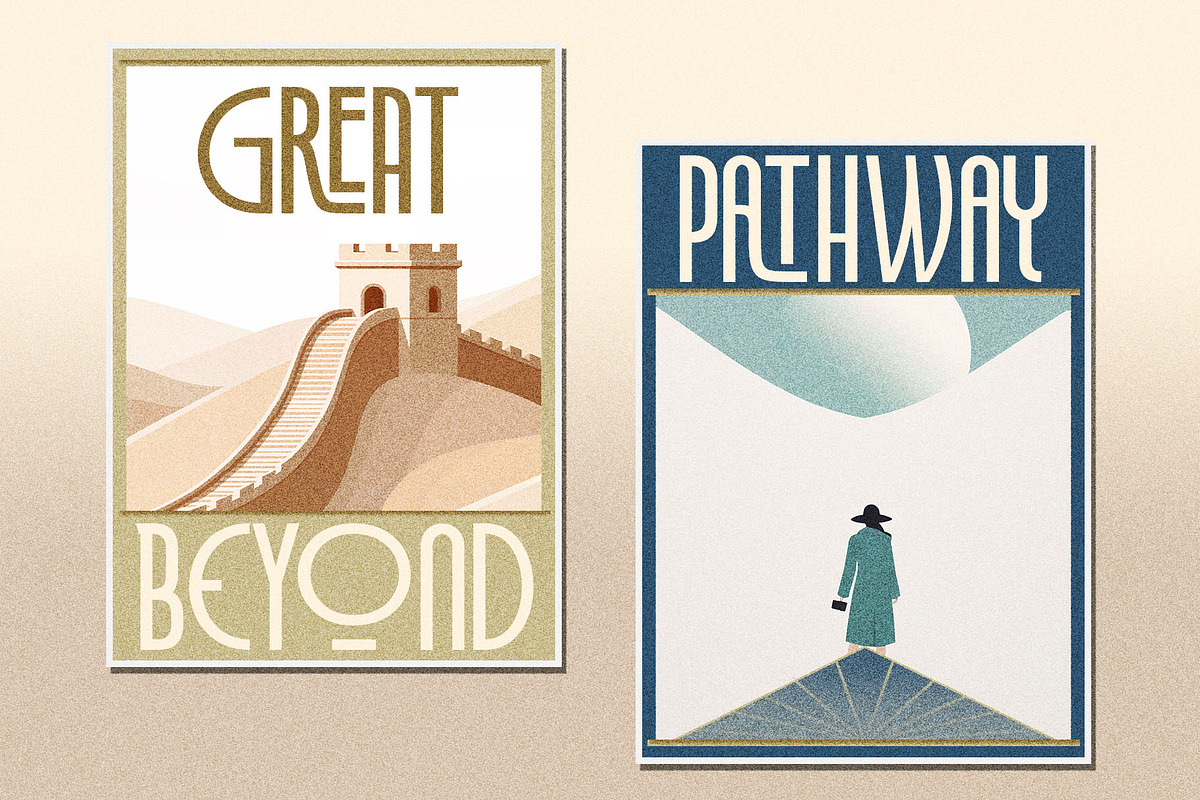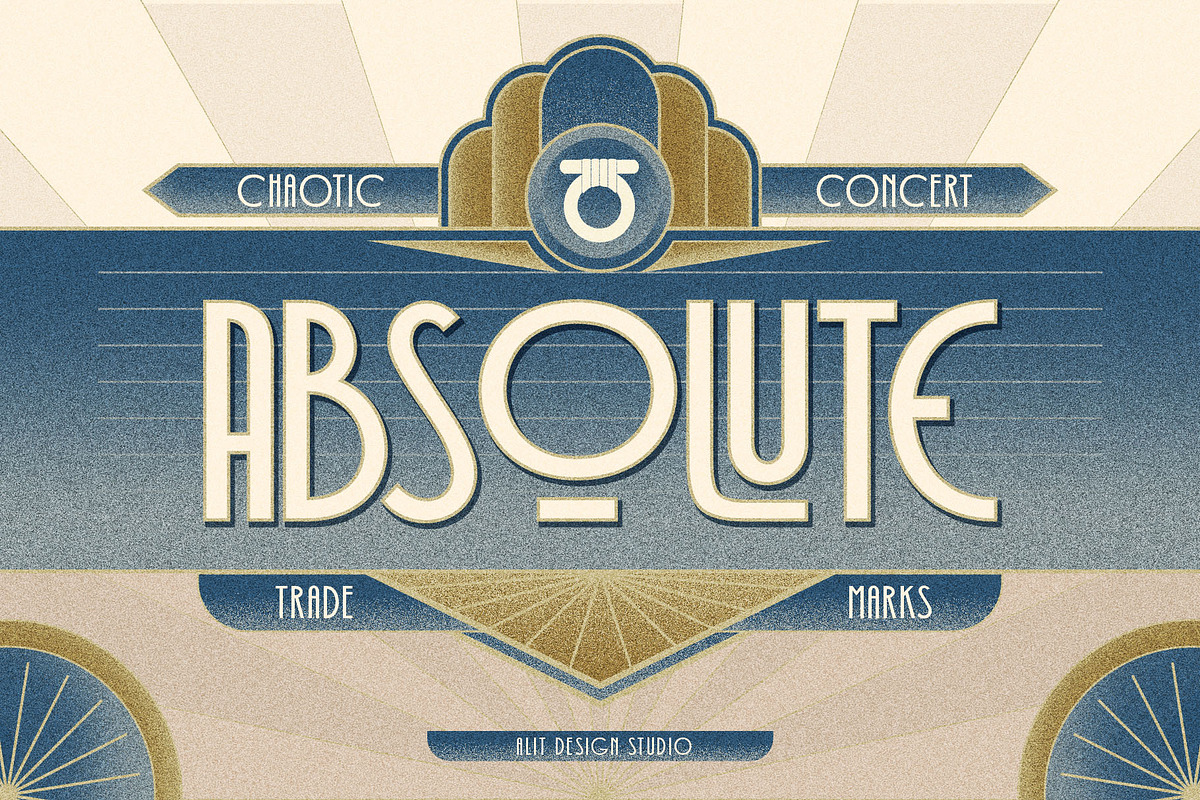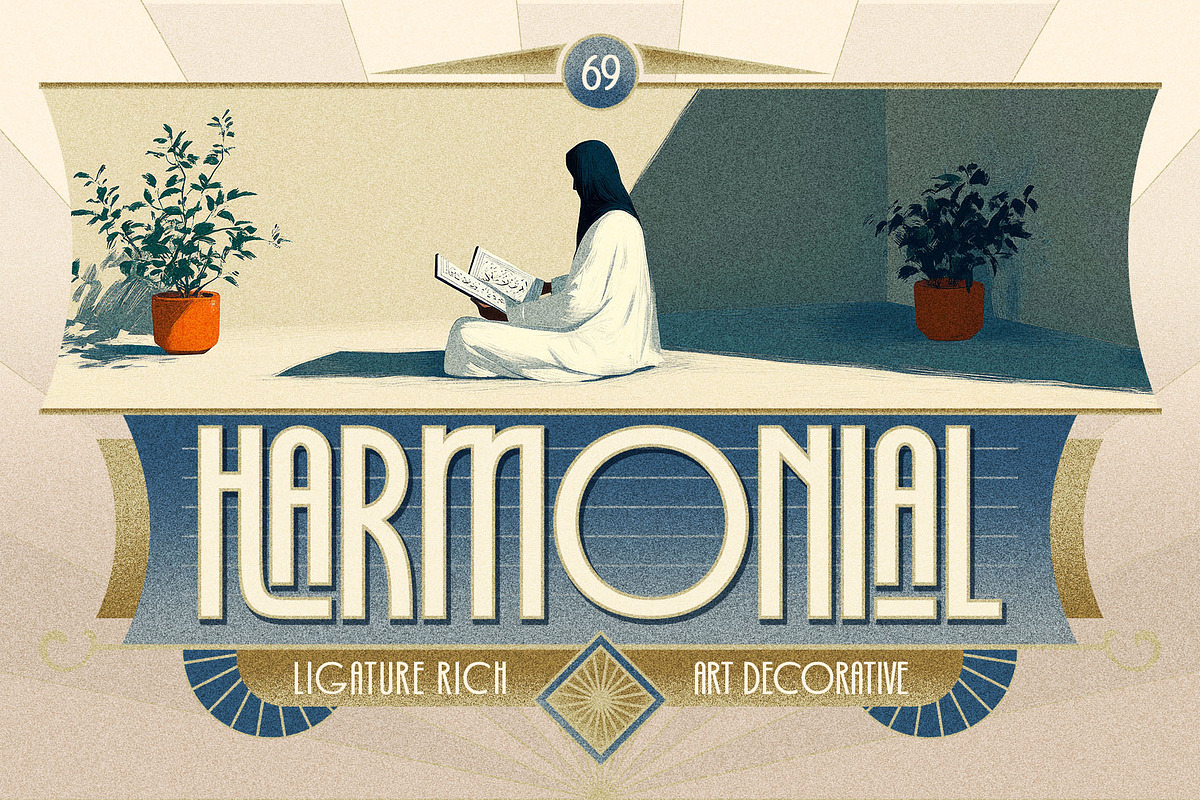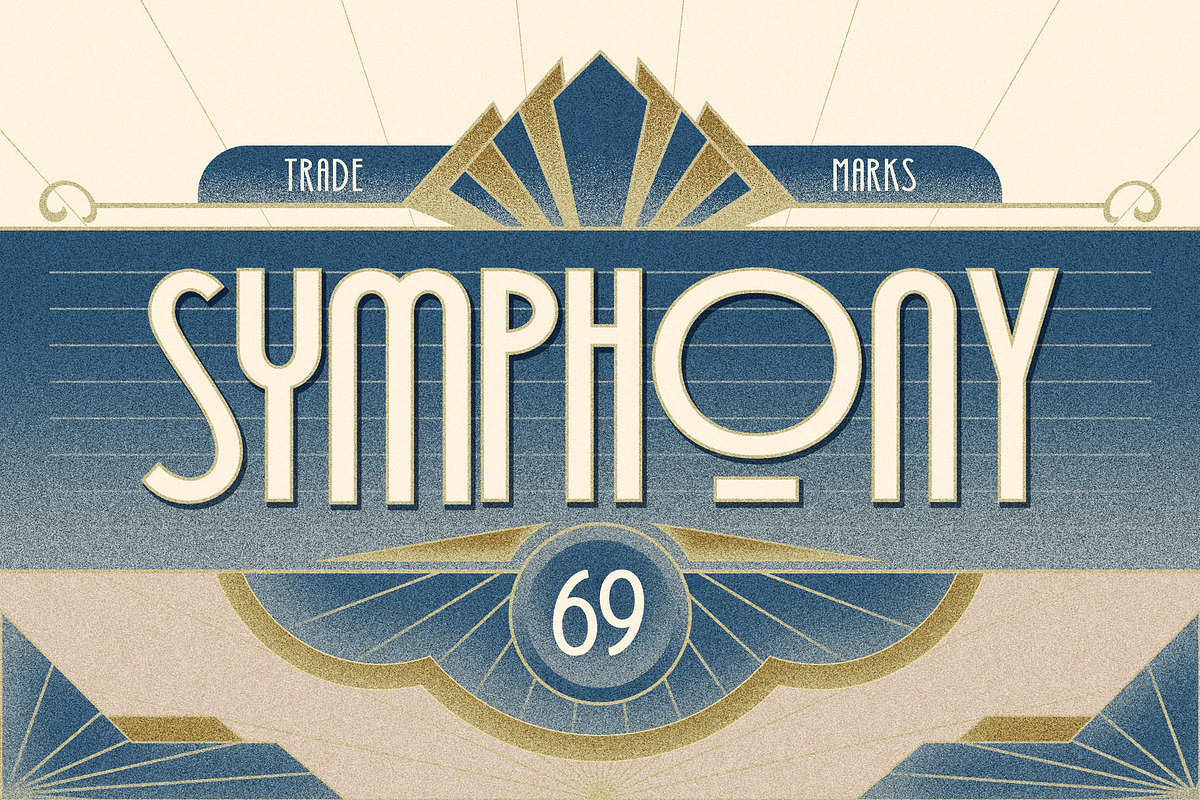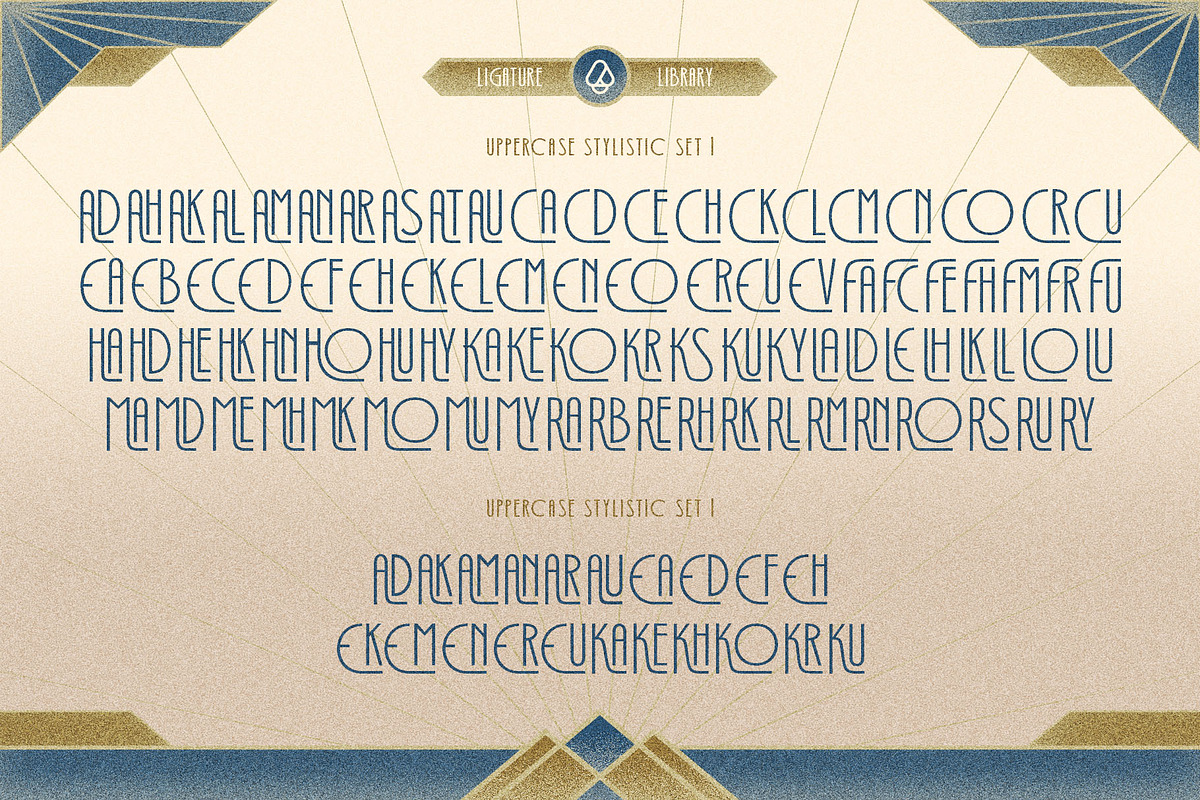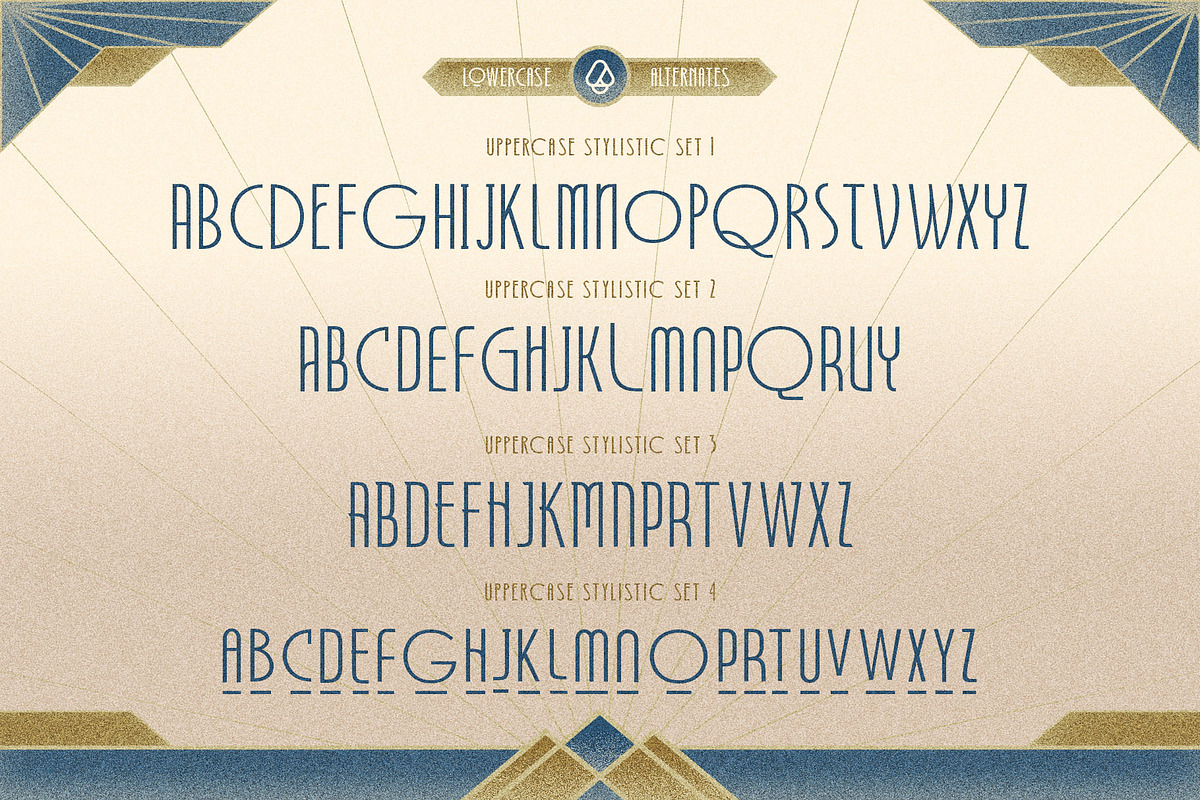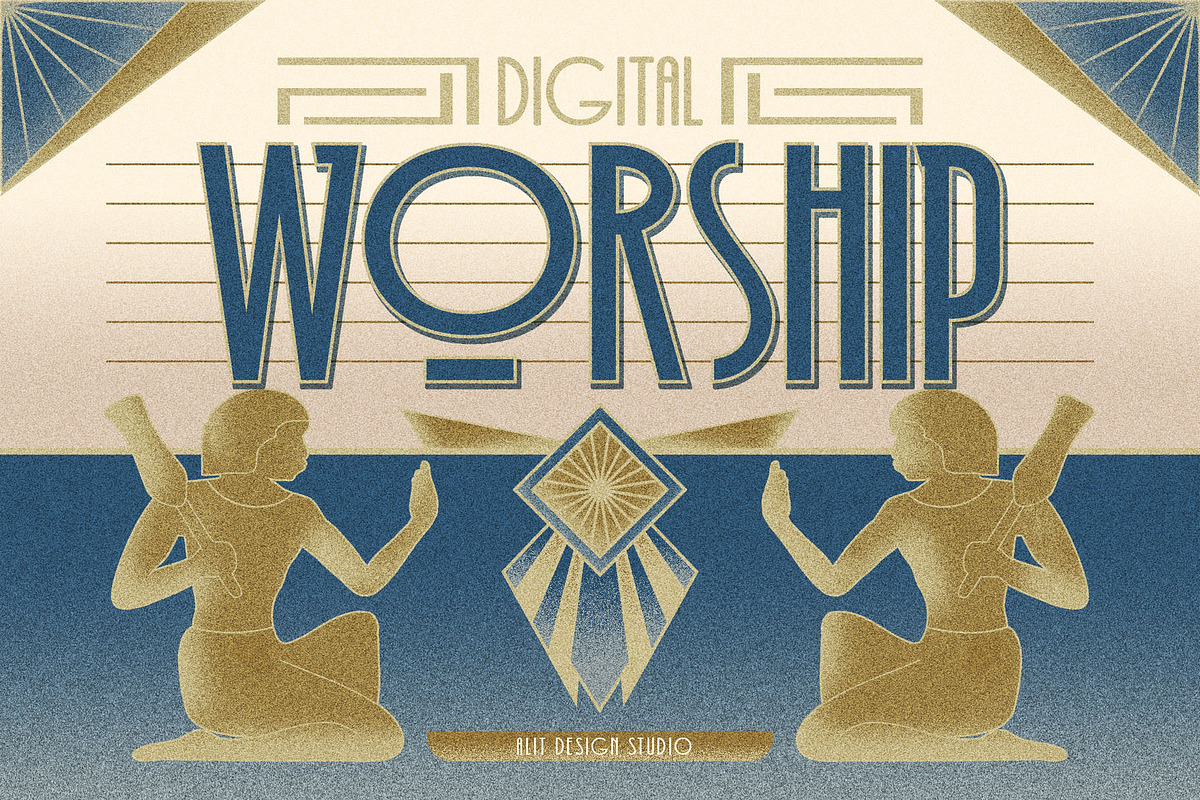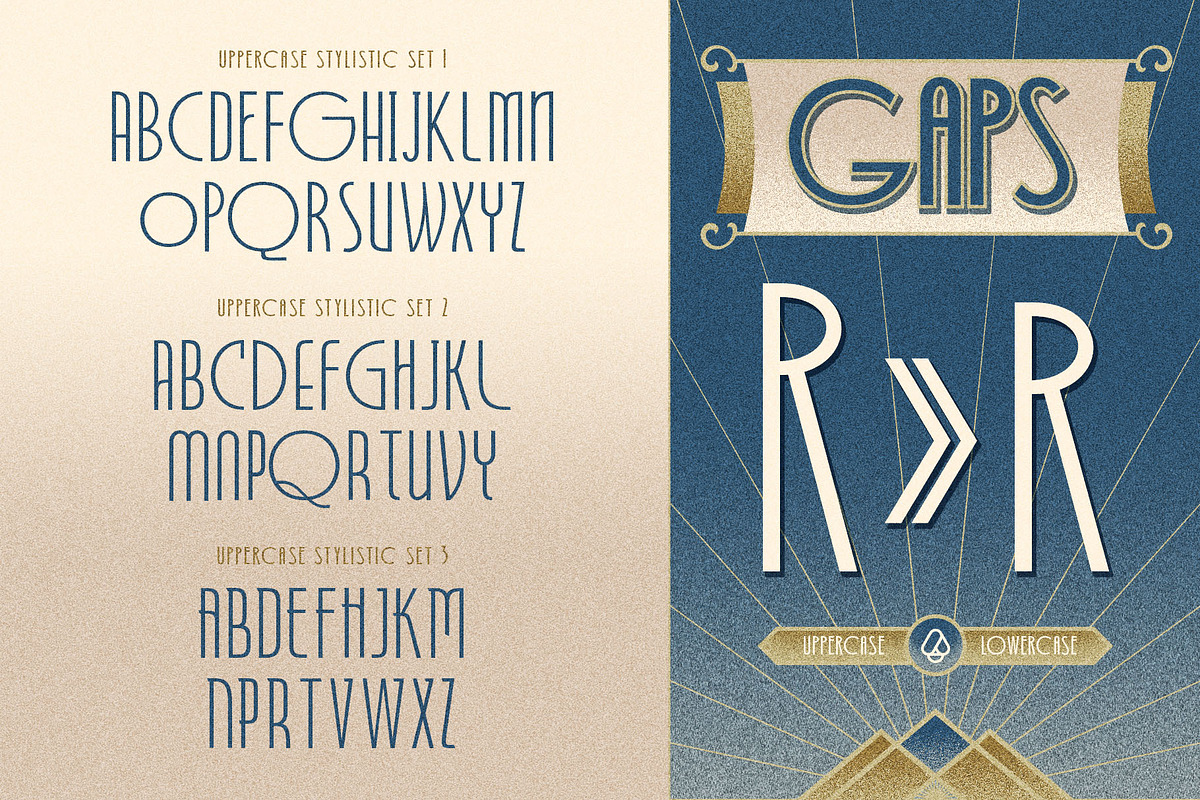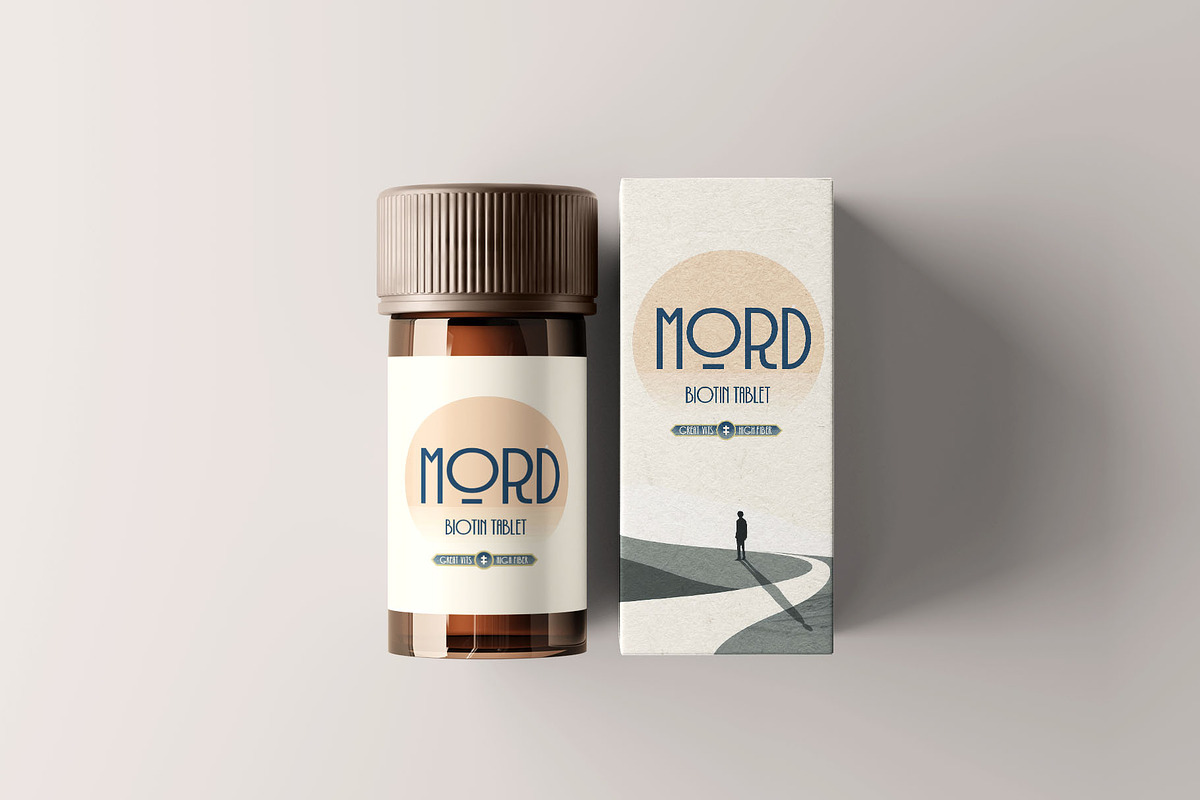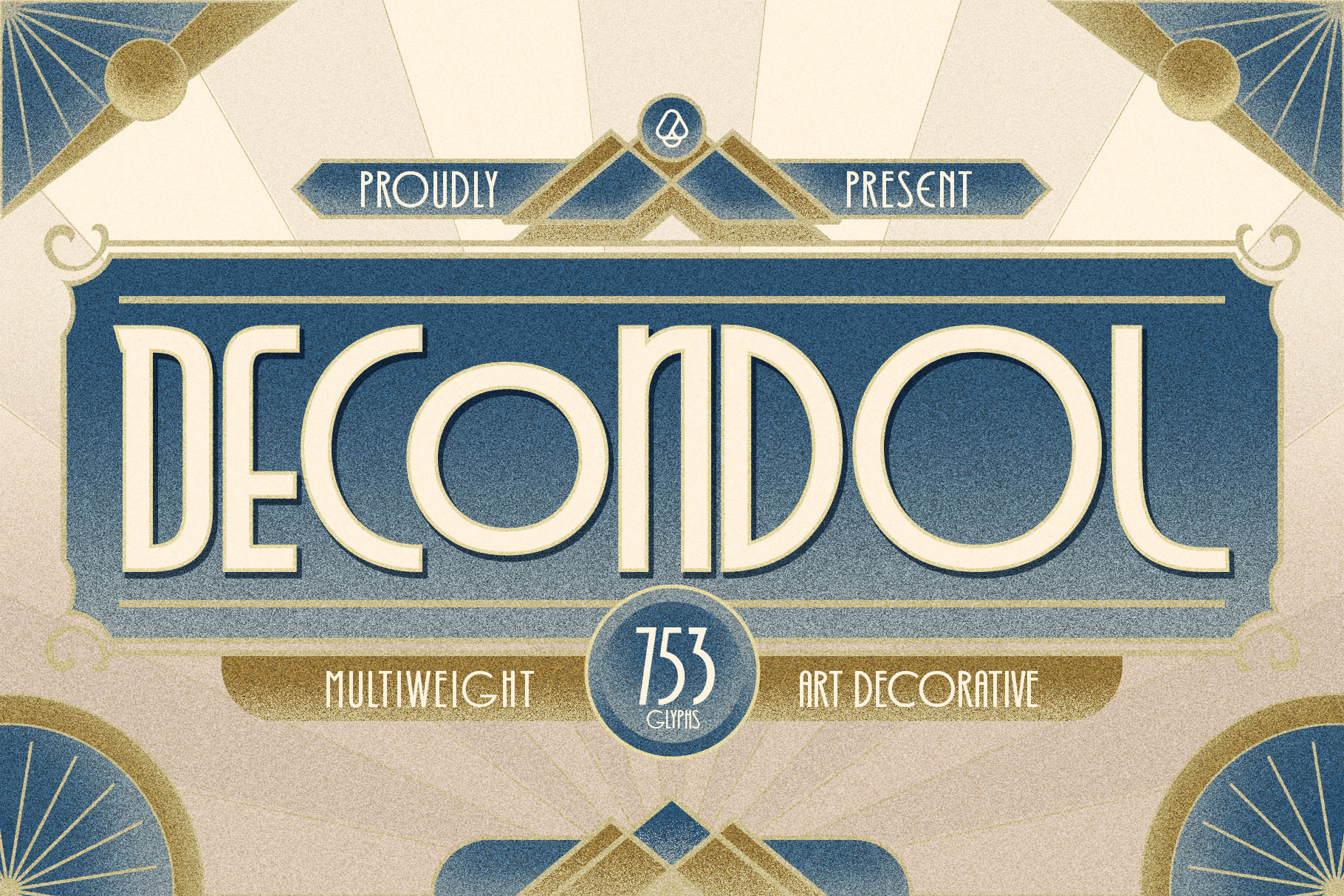
Decondol Art Deco Typeface
Elevate your designs with Decondol, a sophisticated Art Deco typeface that seamlessly blends modern elegance with timeless design. Inspired by the geometric symmetry and bold aesthetics of the Art Deco era, this typeface redefines contemporary style with its refined details and versatile character.
- Modern Art Deco Aesthetic: A perfect fusion of vintage charm and modern minimalism.
- Five Versatile Weights:
- Light: For subtle elegance and understated designs.
- Regular: A balanced weight, ideal for text and clean layouts.
- Medium: Adds a touch of boldness while retaining sophistication.
- Semi Bold: Perfect for making statements with finesse.
- Bold: Strong and striking for headlines and standout elements.
- Stylized Letterforms: Geometric shapes and smooth lines enhance legibility and add a distinctive flair.
- Branding and logos that demand elegance and authority.
- Editorial layouts, from magazines to event invitations.
- Packaging design that combines luxury with modernity.
- Digital and print projects where timeless style meets contemporary needs.
Decondol Art Deco Typeface: Your ultimate choice for creating captivating, sophisticated designs that resonate with a touch of golden-age glamour.